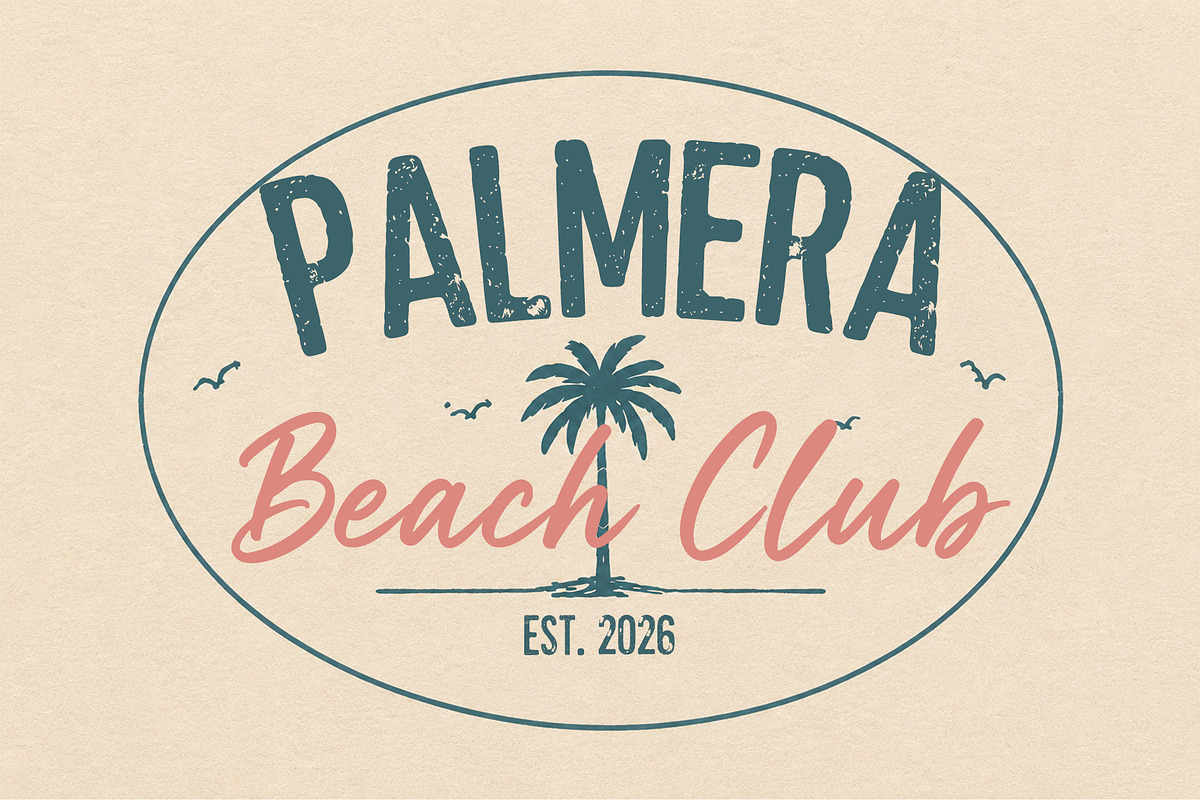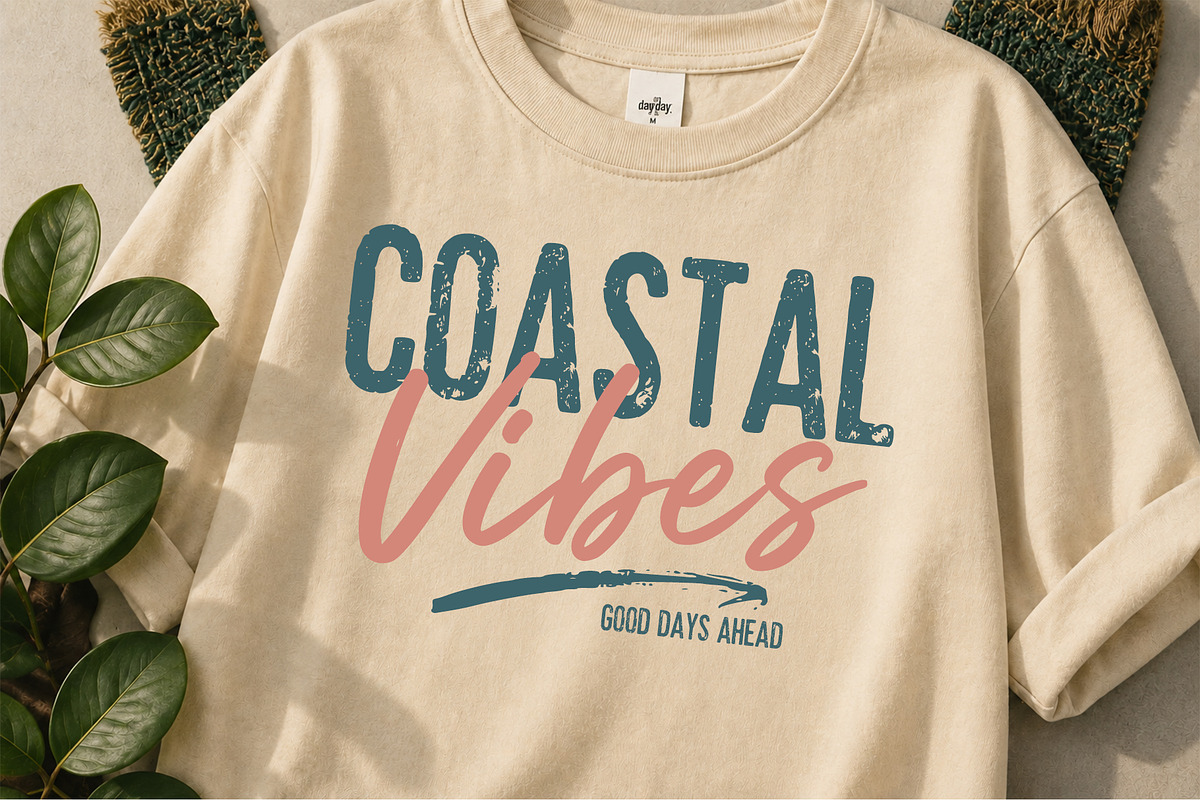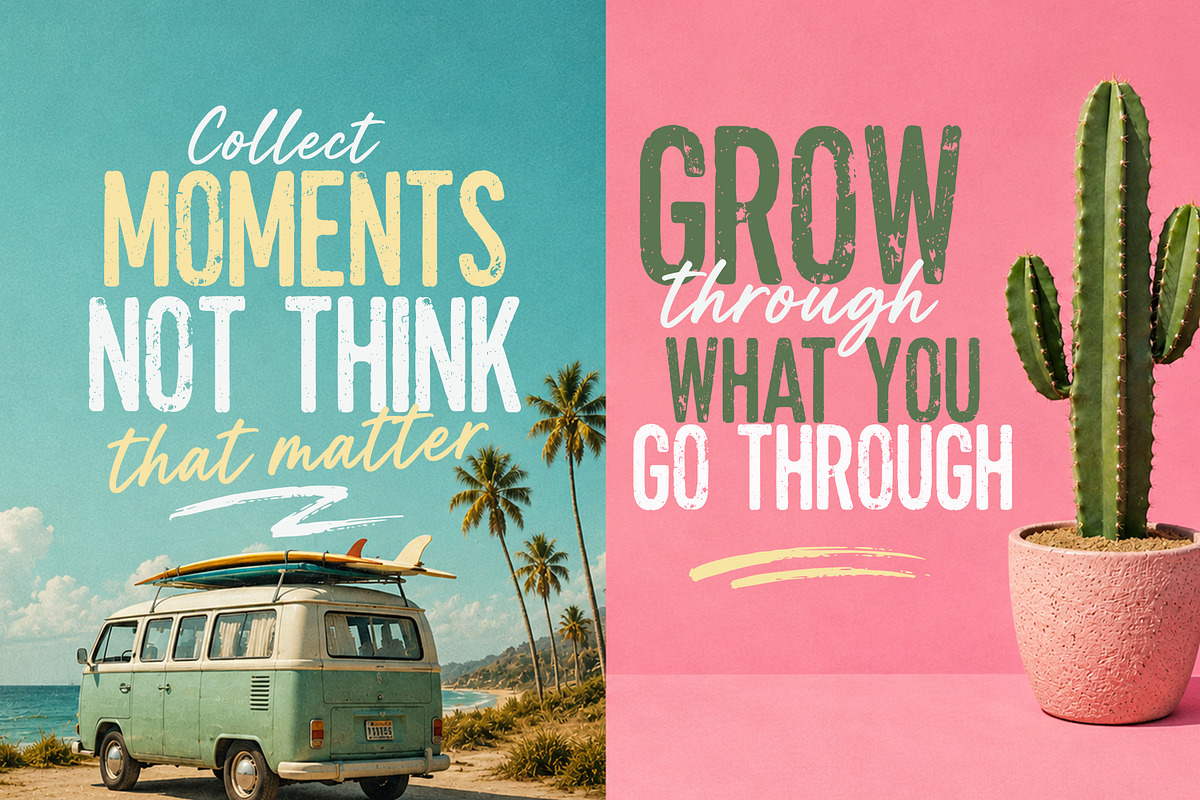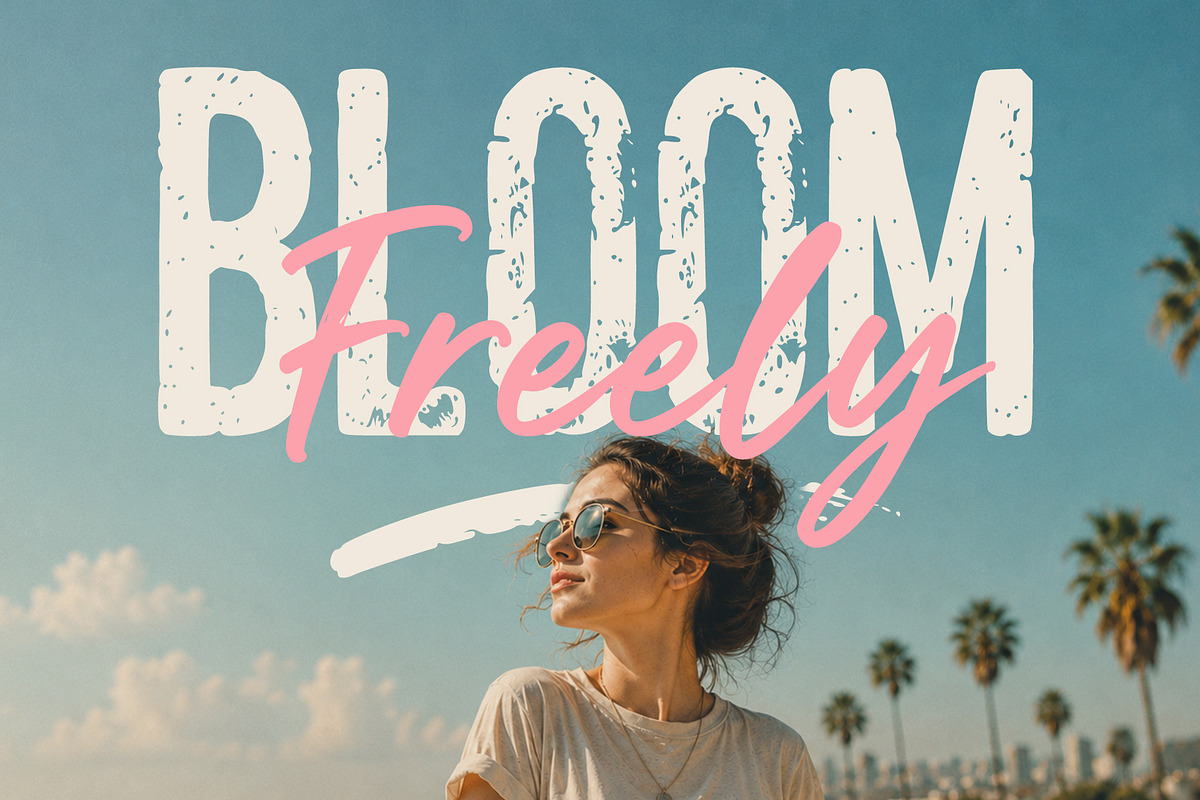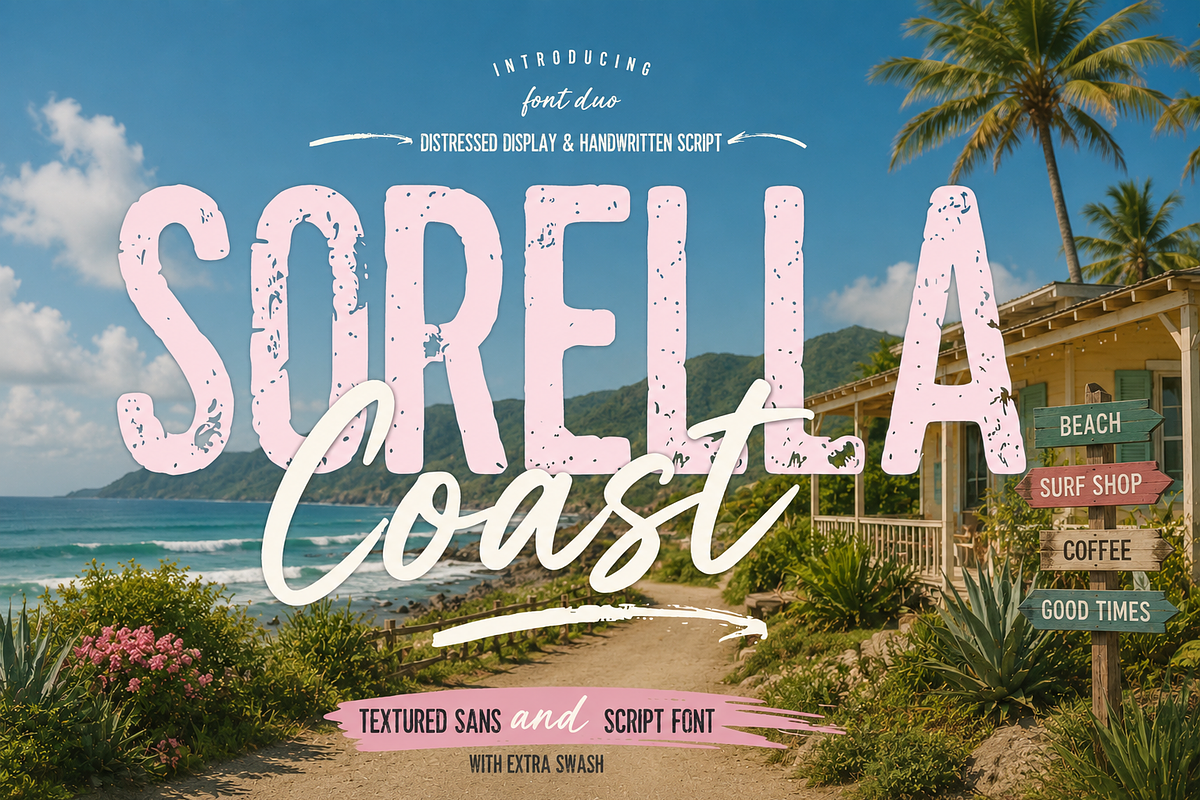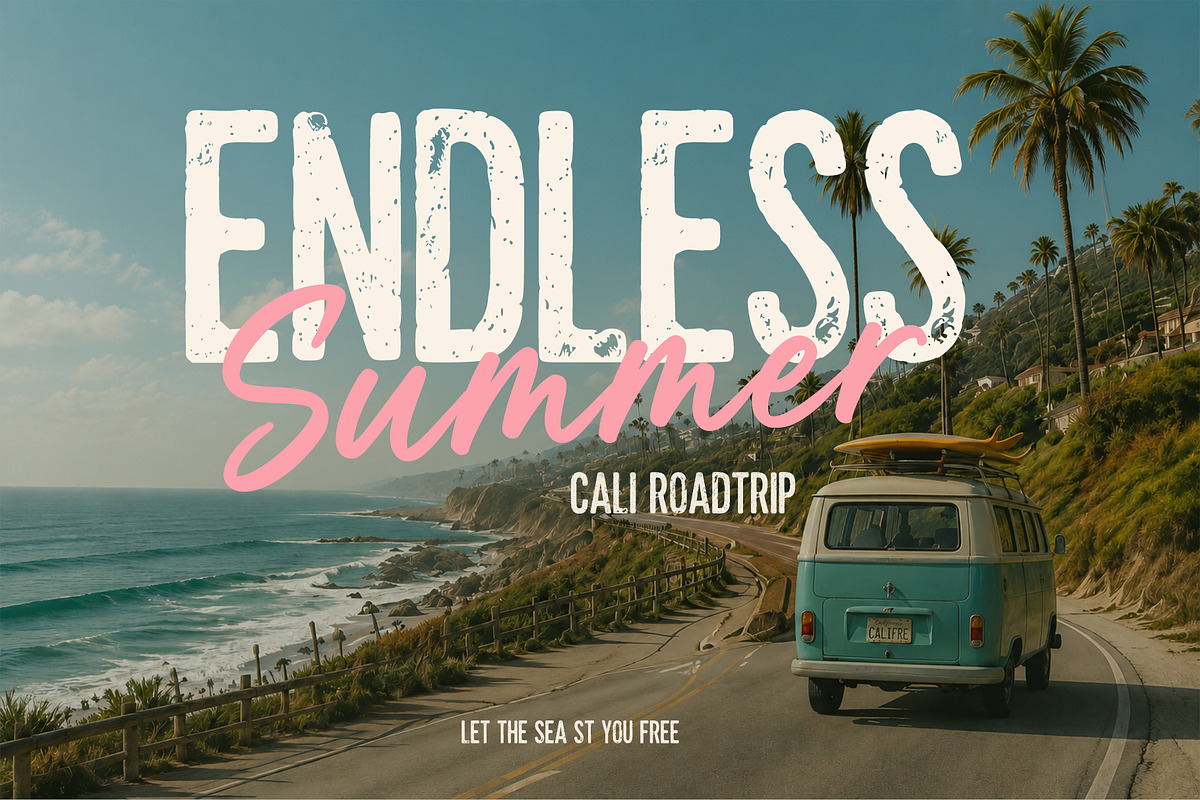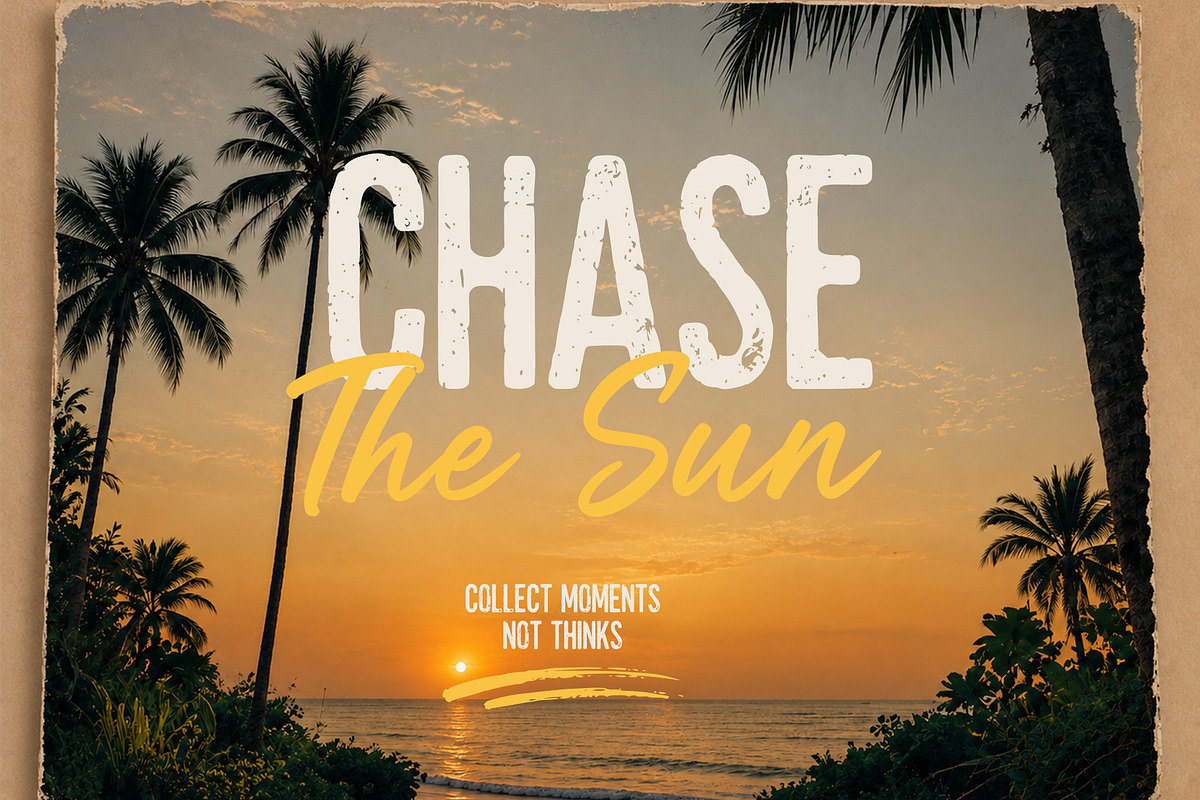
Sorella Coast Font Duo
Sorella Coast – Textured Sans & Handwritten Script Font Duo
Bring warm coastal vibes into every design with Sorella Coast, a stylish font duo that combines a bold textured sans with a smooth handwritten script. Inspired by sunny beaches, vintage surf culture, and relaxed summer adventures, this versatile pairing creates eye-catching typography with an effortless handcrafted feel.
The bold display font features an authentic distressed texture that adds character and depth, while the flowing script provides a natural contrast for elegant signatures, branding, and creative highlights. Together, they create a perfect balance between bold and organic styles.
Whether you're designing for modern brands, beach-inspired projects, or vintage aesthetics, Sorella Coast helps every design stand out with a unique handcrafted look.